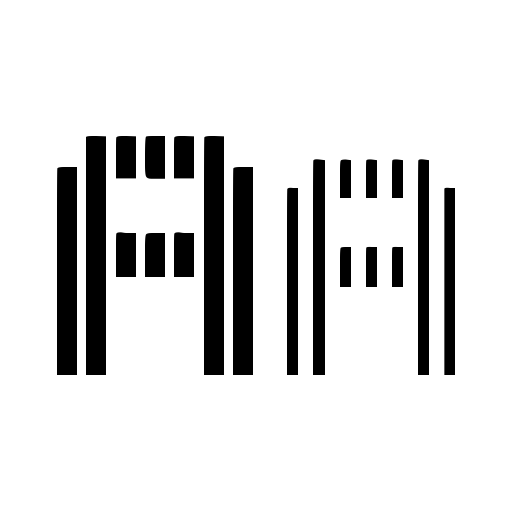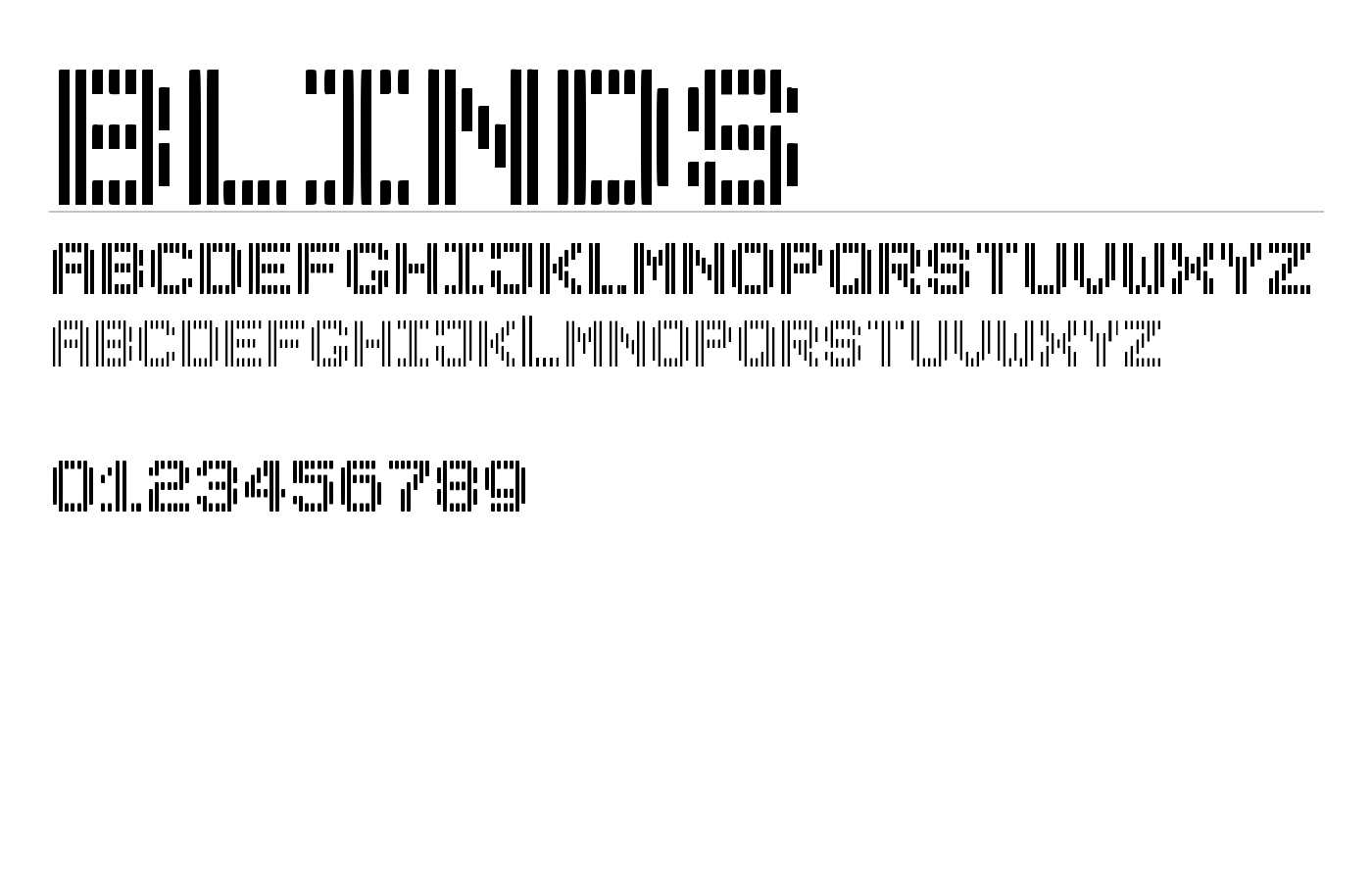
BLINDS is a unique, modern sans serif font characterized by its striking use of vertical lines that create a barcode-like effect. Its condensed width and tall, geometric letterforms give it a futuristic and tech-inspired feel, making it ideal for eye-catching headlines, logos, and creative branding projects that want to convey innovation and digital style. This font works best where bold visual impact is needed rather than for long text.
BLINDS Font
About BLINDS Font